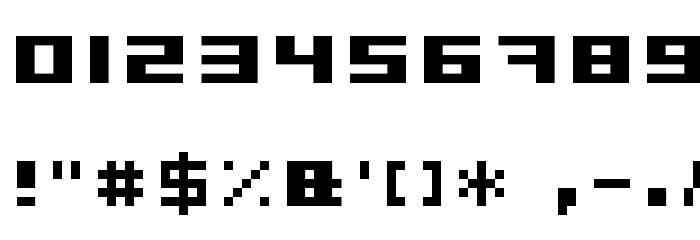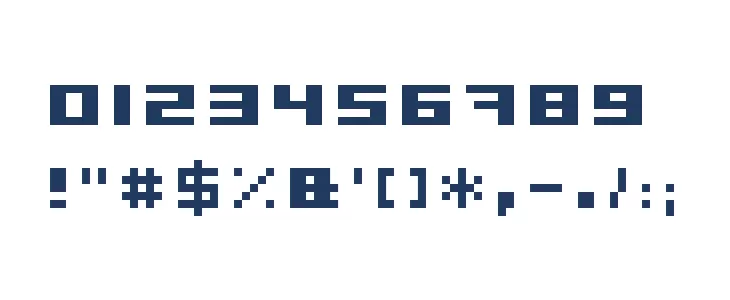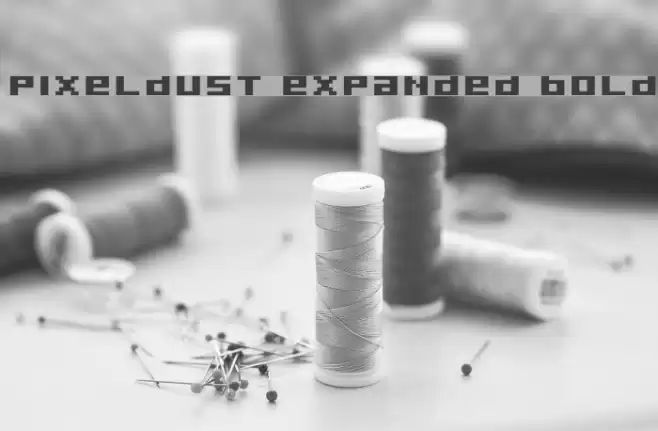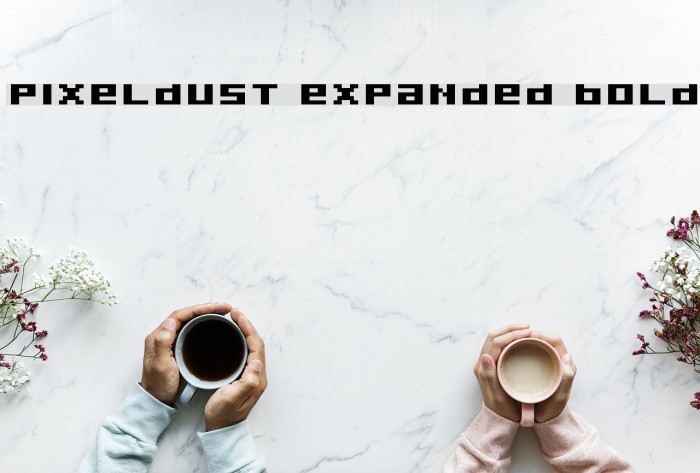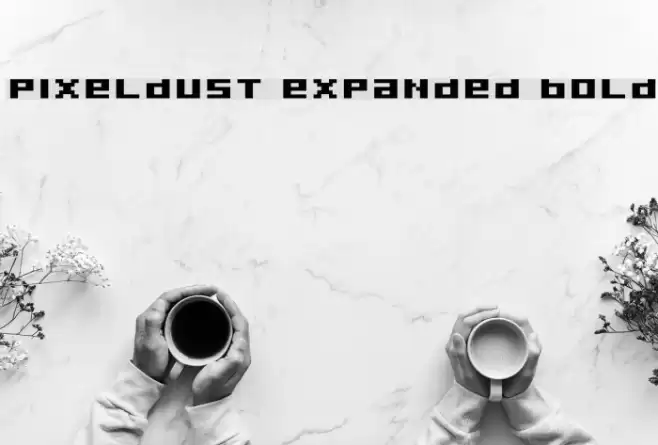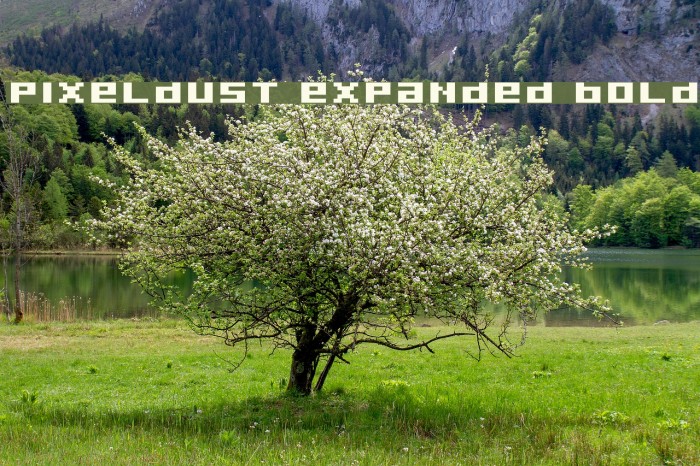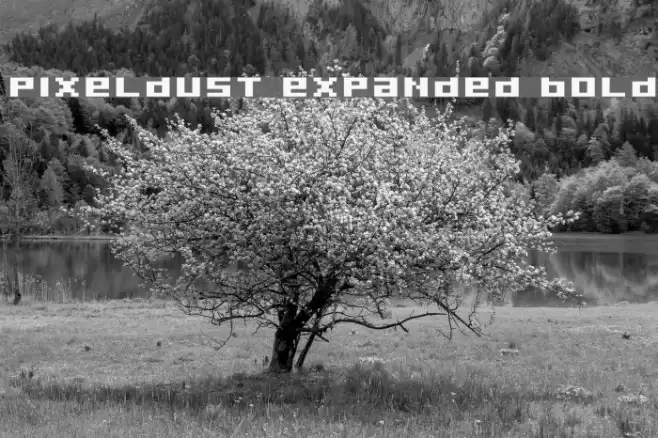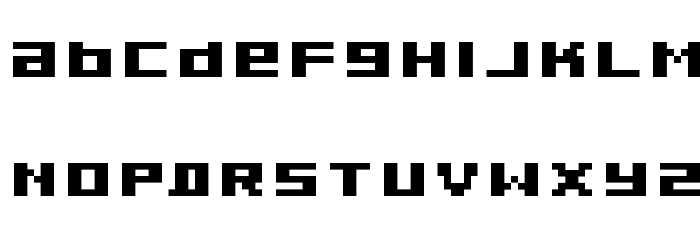
Pixeldust Expanded Bold Font
Pixeldust Expanded Bold Description
This font features a bold, pixelated design reminiscent of classic video game graphics. Each character is constructed with a blocky, grid-like appearance, giving it a distinctly digital and retro aesthetic. The uniformity in height and width across characters creates a cohesive and structured look, ideal for projects that aim to evoke nostalgia or a tech-inspired theme. The uppercase and lowercase letters maintain a consistent style, with minimal differentiation in size, enhancing the font's geometric appeal. Numbers and special characters are equally bold and pixelated, ensuring readability and visual impact.
A bold, pixelated font with a retro, digital aesthetic from Pixel fonts.
- Proposed Projects: Ideal for video game design, retro-themed posters, digital art projects, and tech-related branding.
- Width: Expanded
- Overall Style: Retro, Digital